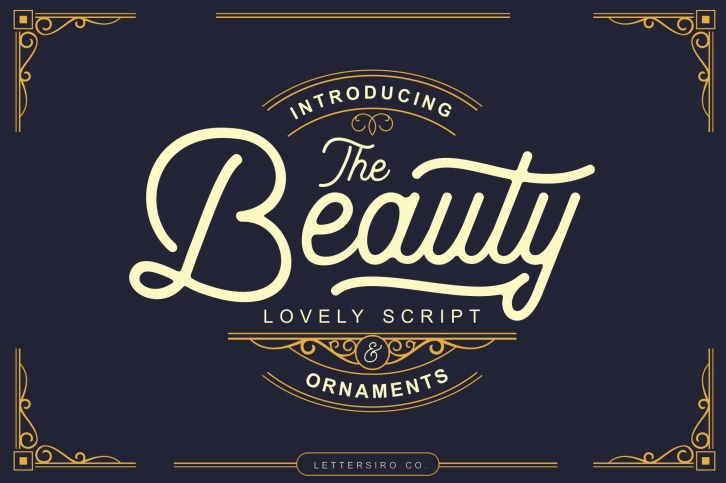
Beauty Script & Ornaments is a beautiful font that was designed by lettersiro co. It's a great choice for designers and creatives who need such a font. It was released on August 18, 2017 and the file size is 12.47 MB. Beauty Script & Ornaments may give a more youthful, expressive and casual look to your project. It is a very beautiful, refined, elegant, and high-quality font.